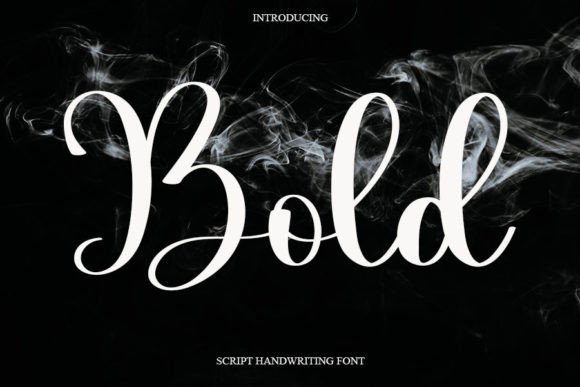
The Sweet Charm of Bold Font: A Designer’s Delight
I’ll never forget the time I was working on a luxury branding project for a high-end jewelry client. I had spent hours perfecting the logo design, but something was missing. The font I had chosen just wasn’t giving off the luxurious vibe I was going for. That’s when I stumbled upon **Bold Font**, a sweet and beautiful handwritten font that features characters that dance along the baseline. It was love at first sight! 💫
An Honest Review of Bold Font
- ✨ Elegant and luxurious feel that’s perfect for high-end designs
- ✅ Beautifully crafted characters that add a touch of sophistication
- 🌈 Versatile and works well for a variety of design projects, from logos to invitations
- 💻 Highly legible, even at smaller font sizes
While I adore Bold Font, there are a few things to keep in mind: 🤔
- ⚠️ Some characters may not work well in all contexts, such as all-caps headings or very small text
- ⚠️ Limited availability of certain glyphs or special characters
- Experiment with OpenType features, such as stylistic alternates, to add more personality to your text
- Experiment with glyphs, ligatures, and stylistic alternates to add more flair to your text
The Story Behind Bold Font
Bold Font was designed by a talented type designer who wanted to create a font that would add a touch of luxury to any design project. Inspired by classic calligraphy and handwritten scripts, Bold Font features beautiful characters that dance along the baseline, giving it a unique and elegant feel.
Q: What is Bold Font?
A: Bold Font is a sweet and beautiful handwritten font featuring characters that dance along the baseline.
Q: What can I use Bold Font for?
A: Bold Font is perfect for a variety of design projects, including luxury branding, packaging, logos, invitations, and more.
Q: Is Bold Font easy to read?
A: Yes, Bold Font is highly legible, even at smaller font sizes.